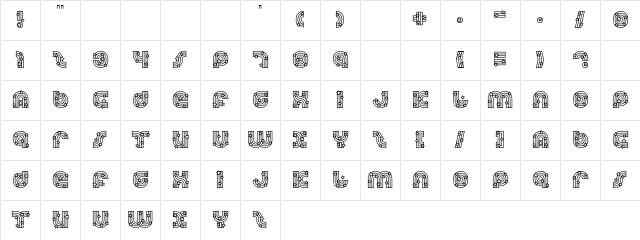
Complete Dreamland Stars Regular glyph index. Displaying only characters natively supported by Dreamland Stars Regular font.
Dreamland Stars is a composed and adaptable typeface that performs quietly and consistently across a wide range of design contexts.